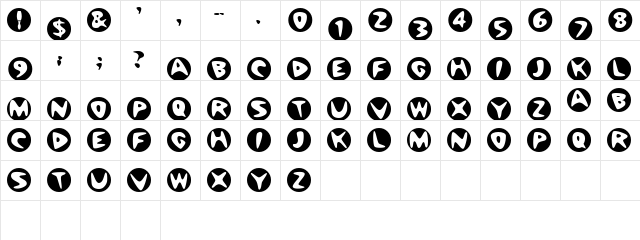
BowlORama Regular
Design Context for BowlORama
BowlORama is a composed and adaptable typeface that performs quietly and consistently across a wide range of design contexts.